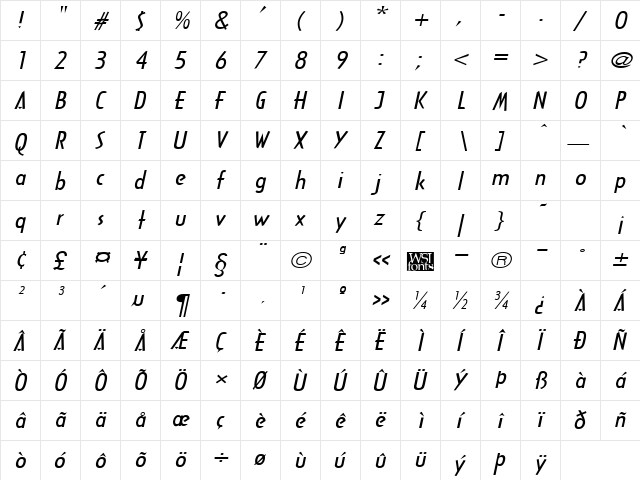
ArcaneBroad Italic
Design Context for ArcaneBroad Typeface
ArcaneBroad takes a measured approach to typography — its balanced proportions and neutral character make it a reliable workhorse for both digital and print work. The dynamic lean of this cut emphasises speed and emphasis in any layout.